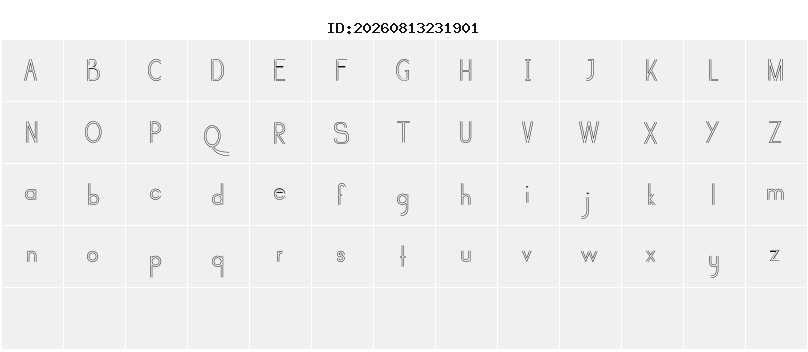
• Font Name: selari
• Designer: cenz qobbal
About selari.ttf
selari.ttf is a modern, elegant sans-serif font designed for ultimate readability and visual harmony. Perfect for branding, headlines, web design, and print materials.